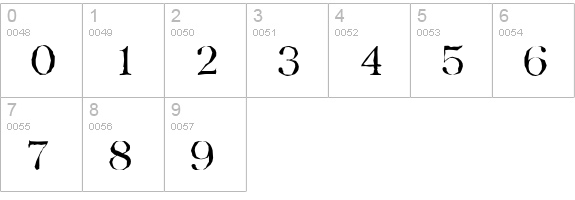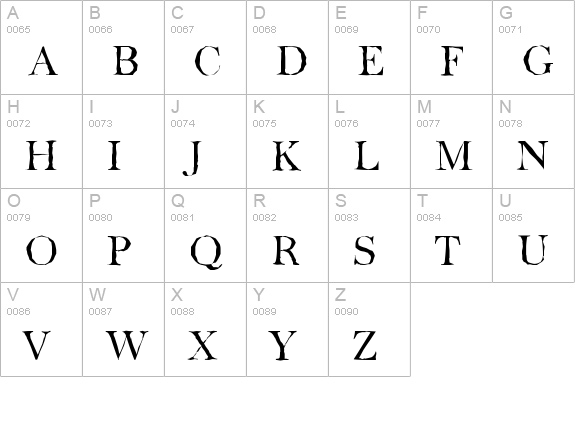
BaskervilleAntique-Light-Regular Font Details
BaskervilleAntique-Light-Regular is a refined, elegant variant in the BaskervilleAntique typeface family \xE2\x80\x94 well suited to elegant body text, refined sub-headings, and luxury branding.
BaskervilleAntique-Light-Regular is a charming and elegant font that exudes sophistication and classic beauty. Its delicate serifs and clean lines make it perfect for adding a touch of refinement to any design project. Whether you're creating invitations, branding materials, or editorial layouts, this timeless typeface will effortlessly elevate your work with its timeless appeal. Best of all, BaskervilleAntique-Light-Regular is available for free download at FontsMarket.com. This means you can access this exquisite font without any cost, making it a valuable addition to your font collection. Don't miss out on the opportunity to enhance your designs with the grace and style of BaskervilleAntique-Light-Regular - download it today and start creating stunning visuals that stand out from the crowd.